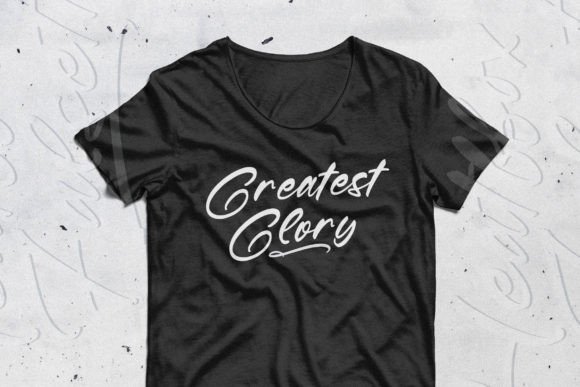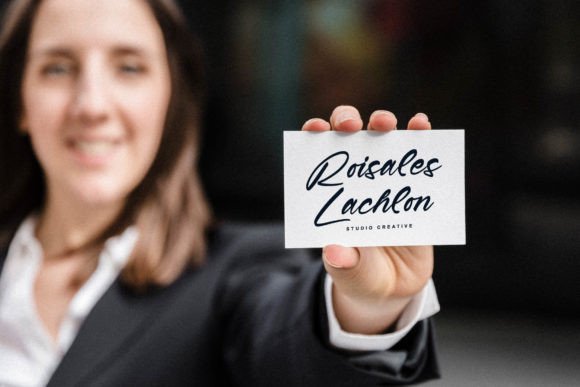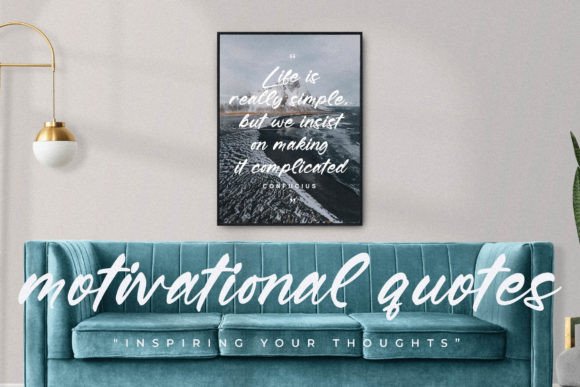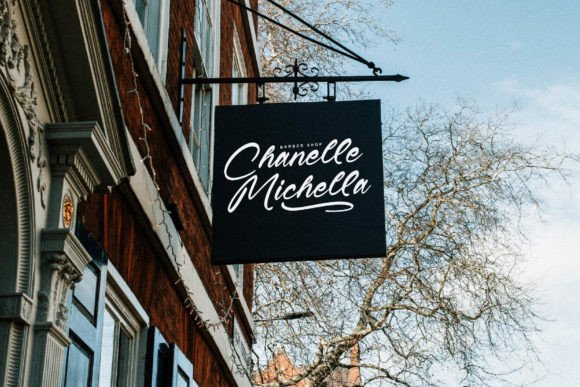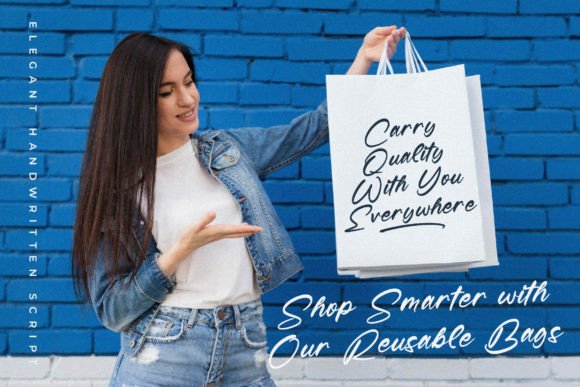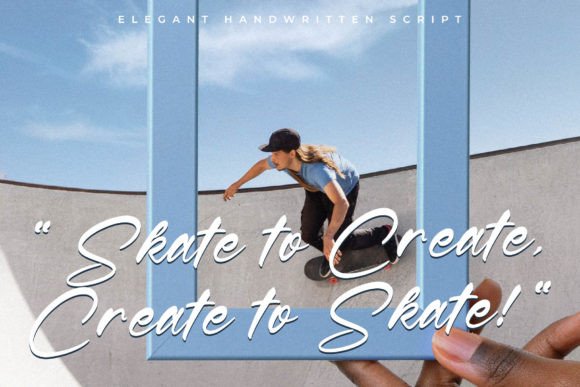
Introducing Heatffox Falsetto: The Elegant Calligraphic Font for Your Creative Projects
Are you a designer, crafty enthusiast, or simply someone who appreciates beautiful typography? Look no further than Heatffox Falsetto, a stunning modern calligraphic font that is sure to elevate your creative projects to new heights. With its graceful lines, beautiful rhythm, and classy feel, Heatffox Falsetto is the perfect choice for anyone looking to add a touch of elegance to their branding, invitations, web graphics, cards, and more.
A Font that Exudes Elegance and Sophistication
Heatffox Falsetto is a masterfully crafted font that boasts a unique blend of modernity and classic calligraphy. Its flowing lines and curves create a beautiful rhythm that is both soothing to the eye and engaging. This font is perfect for designers and crafters who want to add a touch of sophistication to their work, whether it’s a luxury brand logo, a wedding invitation, or a social media graphic.
One of the best things about Heatffox Falsetto is its versatility. This font can be used for a wide range of creative projects, including:
- Branding projects: Create a lasting impression with your logo, packaging, and marketing materials that exude elegance and sophistication.
- Invitations: Make your wedding, birthday, or event invitations truly special with a font that is both beautiful and refined.
- Web graphics: Add a touch of class to your website, social media, or blog with Heatffox Falsetto.
- Cards: Create stunning greeting cards, postcards, or stationery that will make your loved ones feel special.
Why Choose Heatffox Falsetto?
So, what sets Heatffox Falsetto apart from other fonts? Here are just a few reasons why designers and crafters love this beautiful calligraphic font:
- Unique and elegant design: Heatffox Falsetto is a one-of-a-kind font that will add a touch of sophistication to any project.
- High-quality and versatile: This font can be used for a wide range of creative projects, from digital to print.
Tips for Using Heatffox Falsetto
To get the most out of Heatffox Falsetto, here are a few tips to keep in mind:
- Experiment with font sizes: Heatffox Falsetto looks great in a variety of font sizes, from large headings to smaller body text.
- Play with color: This font looks stunning in a range of colors, from classic black and white to bold brights and pastels.
- Mix and match: Combine Heatffox Falsetto with other fonts to create a unique and eye-catching design.
In conclusion, Heatffox Falsetto is a beautiful, modern calligraphic font that is sure to elevate your creative projects to new heights. With its elegant design, versatility, and ease of use, this font is perfect for designers, crafters, and anyone who appreciates beautiful typography. Whether you’re working on a branding project, invitation, web graphic, or card, Heatffox Falsetto is the perfect choice for adding a touch of sophistication and elegance.